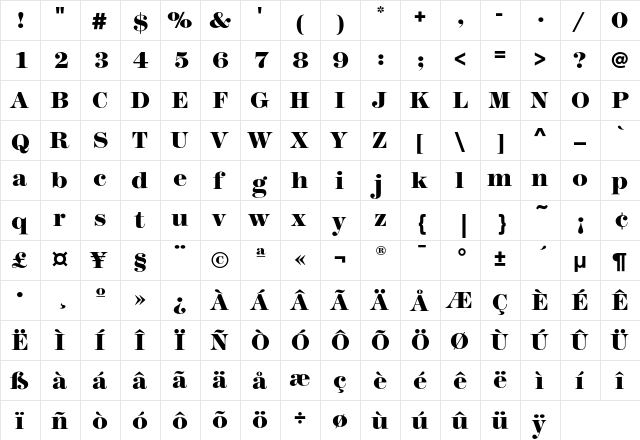
ModernNo216EF Heavy
Design Context for ModernNo216EF Typeface
ModernNo216EF is a composed and adaptable typeface that performs quietly and consistently across a wide range of design contexts.